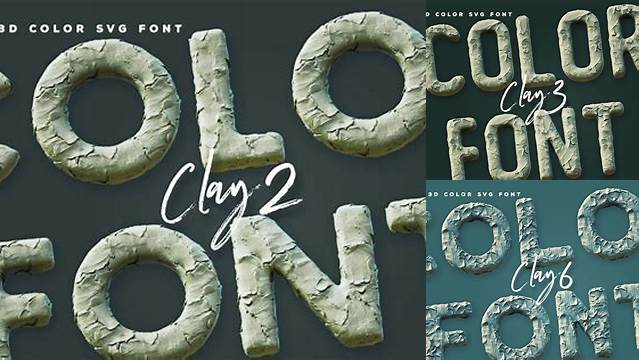
Clay Font: Free Downloads For Creative Designs
Hey guys! Are you on the hunt for that perfect font to give your designs a unique, handcrafted feel? Look no further! Clay fonts are where it’s at. They bring a touch of warmth and artistry to any project, making your text look like it’s been sculpted straight from the earth. In this article, we're diving deep into the world of clay fonts, exploring where you can find them for free, how to use them, and everything in between. So, let's get started and unearth some amazing typographic treasures!
1. What is a Clay Font?
So, what exactly is a clay font? Think of it as typography that mimics the texture and appearance of clay. These fonts often feature rounded edges, irregular shapes, and a tactile quality that makes them stand out from traditional fonts. The beauty of a clay font lies in its ability to evoke a sense of authenticity and handmade charm. They’re perfect for projects where you want to convey a sense of warmth, creativity, or a down-to-earth vibe. Using a clay font can transform your designs, giving them a unique and artistic edge. Whether you’re working on a logo, poster, or website, a clay font can add that special something that sets your work apart. They are also very versatile, fitting well in both digital and print media. The organic and slightly imperfect nature of clay fonts is what makes them so appealing and perfect for capturing attention.
2. The Allure of Handcrafted Typography
There's just something inherently appealing about handcrafted typography, isn't there? In a world dominated by sleek, digital designs, the imperfect charm of a clay font really shines. The allure of these fonts comes from their ability to connect us to the human element. Each letter looks like it’s been lovingly shaped by hand, giving your designs a personal touch that feels authentic and unique. When you use a clay font, you're not just choosing a typeface; you're choosing a story. You're choosing to communicate a sense of artistry and care. This is especially powerful in branding, where creating an emotional connection with your audience is key. Handcrafted typography, like clay fonts, stands out because it’s different. It’s a refreshing departure from the clean, minimalist styles that can sometimes feel sterile. So, if you're looking to add some soul to your designs, clay fonts are an amazing way to go.
3. Why Choose a Clay Font for Your Design?
Why should you choose a clay font for your design, you ask? Well, there are tons of reasons! First off, they're incredibly versatile. A clay font can add a touch of personality to a wide range of projects, from branding and logos to posters and websites. They're perfect for designs that need a warm, friendly, and approachable feel. Clay fonts stand out from the crowd. In a sea of predictable typefaces, using a clay font helps your design grab attention and leave a lasting impression. They're also great for conveying a sense of craftsmanship and authenticity. If you want your design to feel handmade and unique, a clay font is an excellent choice. Plus, they’re just plain fun to work with! The texture and shape variations within a clay font add a playful element to your designs, making them more engaging and visually appealing.
6. Popular Clay Font Styles and Types
Let's dive into some popular clay font styles and types! Just like there are tons of flavors of ice cream, there’s a wide range of clay fonts to choose from. Some clay fonts have a rough, almost unfinished texture, giving them a rustic and raw feel. These are awesome for projects that need a bit of edginess or a natural touch. Then there are smoother clay fonts that have a more refined, polished look. These are great for designs that need a touch of sophistication while still maintaining that handcrafted vibe. You'll also find clay fonts that mimic different sculpting techniques, like those that look like they've been molded with fingers or carved with a tool. And don't forget about variations in weight and width! Some clay fonts are bold and chunky, perfect for headlines, while others are lighter and more delicate, ideal for body text. Exploring the different styles and types of clay fonts is half the fun of the design process!
7. Using Clay Fonts in Logos
Using a clay font in your logo can be a brilliant way to make your brand stand out. Think about it: your logo is the face of your business, so you want it to make a strong and memorable impression. A clay font can bring a unique, handcrafted feel to your logo, conveying a sense of authenticity and personality. This is especially effective if your brand values craftsmanship, creativity, or a down-to-earth approach. Imagine a logo for a pottery studio using a clay font – it just makes perfect sense, right? But clay fonts aren't just for artsy businesses. They can also work well for brands in the food, beverage, or even outdoor industries. The key is to choose a clay font that aligns with your brand's overall aesthetic and message. Consider the weight, style, and legibility of the font, and how it will look in different sizes and applications. A well-chosen clay font can give your logo a distinctive and timeless quality.
8. Clay Fonts for Website Design
When it comes to website design, clay fonts can be a game-changer. They add a touch of personality and warmth to your site, making it feel more inviting and less like a generic template. But using clay fonts on the web requires a bit of finesse. You want your website to look great, but you also want it to load quickly and be easy to read. That means choosing clay fonts that are optimized for web use. Look for fonts that have been properly hinted and have a variety of weights and styles. This will give you more flexibility in your design and ensure that your text looks crisp and clear on different screens. Consider using clay fonts for headings and subheadings to add visual interest without sacrificing readability. For body text, you might want to stick with a more traditional font, but a subtle clay font accent can still add a unique touch. Remember, the goal is to create a website that’s both beautiful and functional, and the right clay font can help you achieve that balance.
9. Clay Fonts in Print Media
Don't think clay fonts are just for the digital world! They can look absolutely stunning in print media too. From posters and brochures to business cards and packaging, a clay font can add a touch of artisanal charm to your printed materials. The tactile quality of a clay font translates beautifully to print, giving your designs a handcrafted feel that's hard to replicate with other typefaces. When using clay fonts in print, consider the paper stock and printing method. A textured paper, for example, can enhance the natural look and feel of a clay font, while a glossy paper might create an interesting contrast. Think about the size and weight of the font as well. A bold clay font can make a statement on a poster, while a lighter weight might be more suitable for smaller text in a brochure. And don't forget to test your designs before you print them! Print out a sample to make sure the font looks just the way you want it to.
10. Pairing Clay Fonts with Other Typefaces
One of the keys to using clay fonts effectively is knowing how to pair them with other typefaces. While a clay font can be a star player in your design, it usually works best when it has a supporting cast. The goal is to create a visual hierarchy that’s both interesting and easy to read. A good rule of thumb is to pair a clay font with a simpler, more neutral typeface. For example, you might use a bold clay font for headlines and a clean sans-serif font for body text. This combination creates a nice contrast and prevents your design from feeling too overwhelming. You can also experiment with different weights and styles within the clay font family itself. Using a lighter weight clay font for subheadings and a bolder weight for headlines can add depth and visual interest to your design. Don’t be afraid to try out different combinations and see what works best for your project. The most important thing is to ensure that your fonts work together harmoniously and enhance your overall message.
11. Best Clay Fonts for Headlines
If you're looking to make a statement with your headlines, a clay font can be an excellent choice. The unique texture and handcrafted feel of these fonts can really grab attention and draw readers in. But not all clay fonts are created equal when it comes to headlines. You'll want to choose a font that's bold, legible, and has a strong visual presence. Think about the overall tone and style of your design. Do you want a headline that feels rustic and earthy, or something a bit more refined and modern? There are clay fonts that fit both aesthetics. Bold, chunky clay fonts work well for headlines that need to stand out and convey a sense of strength and stability. Lighter weight clay fonts, on the other hand, can add a touch of elegance and sophistication. And don't forget about the spacing and kerning! Adjusting the space between letters can make a big difference in the overall impact of your headline. Experiment with different options until you find the perfect balance.
12. Ideal Clay Fonts for Body Text
While clay fonts are fantastic for adding personality to headlines and accents, they can be a bit tricky to use for body text. The textured and often irregular nature of these fonts can sometimes make them less legible in large blocks of text. That said, there are some clay fonts that work well for body text, especially if you choose a font with a simpler design and good readability. Look for clay fonts that have a consistent letterform and a generous x-height (the height of the lowercase letters). This will help ensure that your text is easy to read, even at smaller sizes. You might also consider using a lighter weight of a clay font for body text, as this can improve legibility. And don't forget about line spacing! Adding a bit of extra space between lines can make your text feel less cramped and easier on the eyes. Ultimately, the best clay font for body text is one that balances style and readability, allowing you to add a touch of personality without sacrificing clarity.
13. Clay Fonts for Branding Projects
Using clay fonts for branding projects can inject a ton of character and authenticity into your brand's visual identity. Think about it: your brand is more than just a logo; it's a feeling, a message, a story. And the fonts you use play a huge role in communicating that. A clay font can help your brand stand out by adding a handcrafted, personal touch. This is especially effective for brands that value craftsmanship, creativity, or a connection to nature. Imagine a clay font used for the logo and branding of a local bakery, a pottery studio, or an organic farm. It just feels right, doesn't it? When choosing a clay font for branding, consider your target audience and the overall message you want to convey. Do you want your brand to feel warm and welcoming, or more edgy and artistic? There's a clay font out there to match every brand personality. And don't forget to think about how the font will look in different applications, from your website and social media to your business cards and packaging.
14. Designing Posters with Clay Fonts
Posters are a fantastic canvas for showcasing the unique charm of clay fonts. Whether you're promoting a concert, an art exhibition, or a community event, a clay font can help your poster grab attention and convey the right mood. The key to designing a great poster with a clay font is to use the font strategically. Think about the hierarchy of information on your poster. What's the most important message you want to convey? Use a bold clay font for the headline or main title to make it stand out. You can then use a smaller, simpler font for the supporting details, such as dates, times, and locations. Consider the overall color palette of your poster as well. Earthy tones and natural colors often pair well with clay fonts, but don't be afraid to experiment with brighter colors for a more modern and playful look. And remember, white space is your friend! Leaving some empty space around your text and images can help your poster feel less cluttered and more visually appealing.
15. Creating Eye-Catching Social Media Graphics with Clay Fonts
In the fast-paced world of social media, eye-catching graphics are essential for capturing attention. Clay fonts can be a secret weapon in your social media design arsenal, helping you create posts that stand out from the crowd. The handcrafted feel of clay fonts can add a touch of authenticity and personality to your social media graphics, making them more engaging and shareable. When using clay fonts on social media, keep legibility in mind. Social media posts are often viewed on small screens, so you'll want to choose a font that's easy to read at a glance. Bold clay fonts work well for headlines and call-to-actions, while simpler clay fonts or contrasting sans-serif fonts can be used for supporting text. Think about the overall aesthetic of your brand and how the clay font fits into that. Use colors, images, and other design elements that complement the font and help your message shine. And don't forget to optimize your graphics for each social media platform! Different platforms have different image size requirements, so make sure your clay font designs look their best everywhere.
16. Free vs. Premium Clay Fonts: What's the Difference?
When searching for clay fonts, you'll quickly encounter both free and premium options. So, what's the real difference, and how do you know which one is right for your project? Free clay fonts can be a fantastic resource, especially if you're on a tight budget. There are many talented designers who generously offer their fonts for free, often for personal use or with limited commercial licenses. However, free fonts may sometimes have limitations in terms of quality, features, or licensing. For example, a free clay font might only include a limited character set or may not be optimized for web use. Premium clay fonts, on the other hand, are typically created by professional type designers and offer a higher level of quality and functionality. They often include a full character set, multiple weights and styles, and extended licensing options. Premium fonts may also come with better support and updates. Ultimately, the choice between free and premium clay fonts depends on your specific needs and budget. If you're working on a small personal project, a free font might be perfectly adequate. But if you're creating a brand identity or working on a large commercial project, investing in a premium clay font can be a wise choice.
17. How to Install a Clay Font on Your Computer
Okay, you've found the perfect clay font and downloaded it – now what? The next step is to install it on your computer so you can start using it in your design software. Luckily, installing a font is usually a pretty straightforward process, whether you're on a Windows or macOS system. On Windows, you can typically install a clay font by right-clicking on the font file (usually a .ttf or .otf file) and selecting "Install." You can also copy the font file into the Fonts folder in your Windows directory (usually located at C:\Windows\Fonts). On macOS, you can install a clay font by double-clicking on the font file, which will open Font Book, Apple's font management application. From there, you can click the "Install Font" button to add the clay font to your system. Once the font is installed, it should be available in all of your design applications, such as Adobe Photoshop, Illustrator, and InDesign. If you're having trouble, try restarting your computer or the application you're using. And if you're still stuck, there are plenty of helpful tutorials and guides online to walk you through the process.
18. Troubleshooting Common Clay Font Issues
Sometimes, using a clay font can come with a few hiccups. Maybe the font isn't showing up in your design software, or the letters are looking distorted, or you're encountering licensing issues. Don't worry, these problems are usually easy to fix! If your clay font isn't appearing in your software, the first thing to check is whether it's properly installed on your computer. Make sure you've followed the installation steps correctly and that the font file is in the right location. If the font is installed but still not showing up, try restarting your computer or the application you're using. Sometimes, a simple restart is all it takes to refresh the font cache. If the clay font is looking distorted or pixelated, especially on the web, it might be a font rendering issue. Try adjusting the font size or using a different rendering engine in your browser or design software. And if you're unsure about the licensing terms of a clay font, always err on the side of caution and contact the font designer or distributor for clarification. With a little troubleshooting, you can usually resolve any issues and get your clay font looking its best.
19. Inspiring Examples of Clay Font Designs
Need some inspiration for using clay fonts in your own projects? There are tons of amazing examples out there! Take a look at websites, logos, posters, and packaging designs that incorporate clay fonts to get a sense of how they can be used effectively. Notice how different clay fonts evoke different moods and styles. Some designs use bold, chunky clay fonts to create a strong and rustic feel, while others use lighter, more delicate clay fonts to add a touch of elegance and whimsy. Pay attention to how clay fonts are paired with other typefaces and design elements. What colors, images, and layouts work well with clay fonts? You can find inspiration in all sorts of places, from design blogs and online portfolios to print magazines and real-world signage. The key is to keep an open mind and look for examples that resonate with your own design aesthetic. Collect the ones you like, and use them as a starting point for your own creative explorations.
20. The Future of Clay Typography
What does the future hold for clay typography? It's an exciting question! As design trends continue to evolve, handcrafted and textured fonts like clay fonts are likely to remain popular for their ability to add a personal touch to digital designs. We may see even more innovative clay font styles emerge, incorporating new techniques and technologies. Imagine clay fonts that are 3D-printed or that dynamically change shape and texture on screen! There's also a growing emphasis on accessibility in design, which means that clay font designers will need to consider legibility and readability even more carefully. This could lead to the development of clay fonts that are optimized for a wider range of users and devices. Overall, the future of clay typography looks bright. These fonts have a timeless quality that resonates with designers and audiences alike, and their versatility ensures that they will continue to play a significant role in visual communication for years to come.
21. Clay Font Generators: A Quick Solution?
Clay font generators might seem like a quick and easy solution if you're in a pinch, but are they really the best option? These online tools allow you to type in text and generate a clay font-style graphic instantly. While they can be convenient for creating quick mockups or social media posts, there are some limitations to consider. First, the quality of the clay fonts generated by these tools can vary greatly. Some generators produce pixelated or distorted results, especially at larger sizes. Second, you typically have limited control over the design of the font. You might be able to choose from a few different styles or textures, but you won't have the same level of customization as you would with a professionally designed clay font. Finally, licensing can be a gray area with these generators. It's important to check the terms of use carefully to ensure that you're allowed to use the generated fonts for your intended purpose. If you're looking for a high-quality clay font for a serious design project, it's generally best to stick with professionally designed fonts. But if you need a quick and dirty solution for a less critical application, a clay font generator might do the trick.
22. DIY Clay Font Creation: A Fun Project
Feeling adventurous? Why not try creating your own clay font? It's a fun and rewarding project that can give you a deeper appreciation for typography and design. There are several ways to approach DIY clay font creation. One option is to actually sculpt letters out of clay and then photograph or scan them. This gives you a truly authentic clay font with all the natural imperfections and textures. Another approach is to use digital tools to create a clay font from scratch. You can use font design software like FontLab Studio or Glyphs to draw letterforms and add clay font-like textures and effects. There are also online tools and apps that can help you create fonts on your computer or mobile device. Creating your own clay font can be challenging, but it's also a great learning experience. You'll gain a better understanding of letterforms, spacing, and the overall design process. Plus, you'll end up with a unique font that's all your own!
23. Clay Fonts in Different Design Styles
One of the cool things about clay fonts is that they can work well in a variety of design styles. While they're often associated with rustic and handcrafted designs, they can also be used in more modern and unexpected ways. In a minimalist design, a clay font can add a touch of warmth and personality to an otherwise clean and stark aesthetic. The texture and imperfections of the font create a subtle contrast that can be visually appealing. In a vintage or retro design, a clay font can enhance the nostalgic feel and add to the overall authenticity. Choose a clay font with a slightly worn or distressed look to really capture the vintage vibe. In a playful or whimsical design, a clay font can add to the fun and lighthearted mood. Use a bold and chunky clay font with rounded edges to create a friendly and inviting feel. The key is to experiment and see how different clay fonts interact with other design elements in your project. Don't be afraid to push the boundaries and try something new!
24. Clay Fonts and Color Psychology
Did you know that fonts, like colors, can evoke certain emotions and associations? This is the realm of font psychology, and it's something to consider when choosing a clay font for your design project. Clay fonts, with their earthy textures and handcrafted feel, often evoke feelings of warmth, authenticity, and approachability. They can also convey a sense of creativity, craftsmanship, and connection to nature. Think about the colors you're using in your design as well, and how they interact with the clay font. Earthy tones like browns, greens, and oranges often pair well with clay fonts, enhancing their natural and organic feel. Brighter colors, like blues and yellows, can create a more playful and modern contrast. Consider the psychology of your target audience too. What emotions and associations do you want your design to evoke? By carefully choosing a clay font and color palette, you can create a design that truly resonates with your audience.
25. Clay Fonts and Cultural Influences
Fonts, like other forms of design, are often influenced by culture and history. Clay fonts, with their connection to handcrafted traditions, can evoke different cultural associations depending on their specific style and texture. Some clay fonts might have a rustic, Southwestern feel, reminiscent of pottery and adobe architecture. Others might evoke a more European or Mediterranean aesthetic, with their rounded forms and textured surfaces. Think about the cultural context of your design project when choosing a clay font. Are you designing for a local audience or an international one? Do you want to convey a specific cultural message or association? Researching different clay font styles and their cultural origins can help you make a more informed choice and create a design that's both visually appealing and culturally sensitive. It's also a great way to add depth and meaning to your design work.
26. Common Mistakes to Avoid When Using Clay Fonts
Clay fonts are awesome, but like any design element, they can be misused if you're not careful. Here are some common mistakes to avoid when using clay fonts in your projects: Overusing clay fonts. A little can go a long way! Using clay fonts for every element of your design can make it feel overwhelming and cluttered. It's usually best to use a clay font sparingly, for headlines or accents, and pair it with a simpler font for body text. Choosing a clay font that's difficult to read. Legibility is key, especially for body text. Avoid clay fonts with overly complex textures or letterforms that can make them hard to read. Ignoring font licensing. Always check the licensing terms of a clay font before using it, especially for commercial projects. Make sure you have the right permissions to use the font for your intended purpose. Not considering the overall design aesthetic. A clay font might not be the right choice for every project. Make sure it fits with the overall style and message of your design. By avoiding these common mistakes, you can use clay fonts effectively and create stunning designs.
27. Where to Find Inspiration for Clay Font Pairings
Stuck on how to pair a clay font with other typefaces? Don't worry, we've all been there! Finding the right font combinations can be tricky, but there are plenty of resources to help you get inspired. One great place to start is online font pairing resources. Websites like FontPair and Canva's Font Combinator can help you explore different font combinations and see how they look together. You can also browse design blogs and online portfolios for examples of designs that use clay fonts effectively. Pay attention to how the clay font is paired with other typefaces, and what kind of mood and style the combination creates. Social media platforms like Pinterest and Instagram can also be a goldmine for font inspiration. Search for hashtags like #fontpairing or #typography to discover beautiful font combinations. And don't forget to experiment on your own! Try out different font combinations in your design software and see what works best for your project. The more you experiment, the better you'll get at finding the perfect font pairings.
28. The Importance of Kerning and Leading with Clay Fonts
Kerning and leading – they might sound like technical jargon, but they're super important for making your clay fonts look their best! Kerning refers to the spacing between individual letters, while leading refers to the spacing between lines of text. Both of these factors can have a big impact on the legibility and visual appeal of your clay font designs. Clay fonts, with their unique textures and shapes, often require careful kerning and leading to ensure that the letters don't feel too cramped or too far apart. Adjusting the kerning can help to create a more even and balanced appearance, while adjusting the leading can improve readability, especially for body text. Most design software programs have built-in kerning and leading controls that you can use to fine-tune your typography. Experiment with different settings until you achieve the perfect balance. A little bit of tweaking can make a big difference in the overall quality of your clay font designs!
29. Using Clay Fonts for a Retro Aesthetic
Want to give your designs a cool retro vibe? Clay fonts can be an excellent choice! Their handcrafted texture and unique letterforms can evoke a sense of nostalgia and authenticity, making them perfect for retro-inspired projects. Think about the specific era you're trying to capture. Different decades have different design styles and typography trends. A bold, chunky clay font might work well for a 1970s-inspired design, while a more delicate and rounded clay font could be a good fit for a 1950s aesthetic. Color palettes also play a crucial role in creating a retro feel. Earthy tones, muted colors, and vintage hues often pair well with clay fonts in retro designs. You can also incorporate other retro design elements, like textured backgrounds, vintage illustrations, and distressed effects, to enhance the overall look and feel. When using clay fonts for a retro aesthetic, it's important to strike a balance between authenticity and legibility. You want your design to feel vintage, but you also want it to be easy to read. Experiment with different clay font styles and combinations to find the perfect retro look for your project.
30. How Clay Fonts Can Enhance Your Design Portfolio
If you're a designer, showcasing your skills with clay fonts in your portfolio can be a smart move. It demonstrates your versatility and your ability to work with a variety of design styles. Including clay font designs in your portfolio can show potential clients that you're not afraid to experiment and think outside the box. It can also highlight your attention to detail and your understanding of typography. When selecting clay font projects for your portfolio, choose designs that are visually strong and that effectively communicate a message. Showcase your best work and make sure it represents your personal style and design aesthetic. You can include a mix of different types of projects, such as logos, websites, posters, and social media graphics, to demonstrate your range of skills. Don't forget to write a brief description of each project, highlighting the design challenges and how you used clay fonts to overcome them. A well-curated portfolio with clay font designs can help you stand out from the competition and attract clients who appreciate unique and handcrafted typography. So go ahead and show off your clay font skills – the design world is waiting!